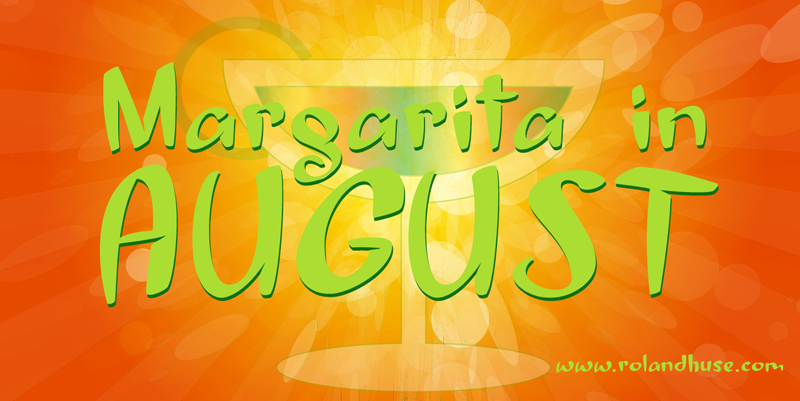
Font name: | Margarita in August |
MARGARITA IN AUGUST is the second member (after Mojito in June) of hand drawn fonts inspired by summer 2014. This font is free for PERSONAL use only. For any commercial use (anything you make money from), you must send a paypal donation to myhandwritings@gmail.com. You MAY NOT sell my fonts or claim them as your own. You MAY NOT edit or rename my fonts. You MAY redistribute my fonts if: 1. You credit me (Roland Huse). 2. Keep the READ ME file intact within the zip folder. 3. Provide a link back to my website (www.rolandhuse.com). Thank you & I hope you like this font, Roland http://www.rolandhuse.com https://www.facebook.com/pages/Runes-And-Fonts/123221817784772 |